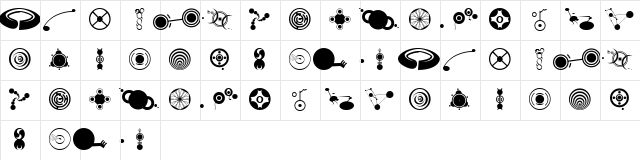
CropBats II AOE Regular Free Font
CropBats II AOE Regular
Design Context for CropBats II AOE
CropBats II AOE is a composed and adaptable typeface that performs quietly and consistently across a wide range of design contexts.